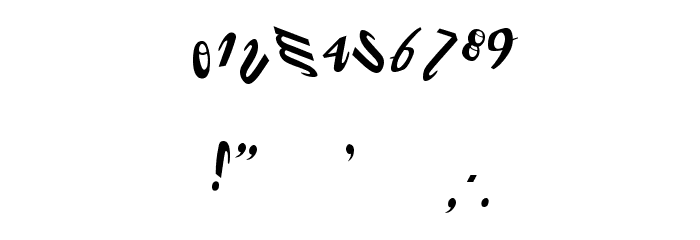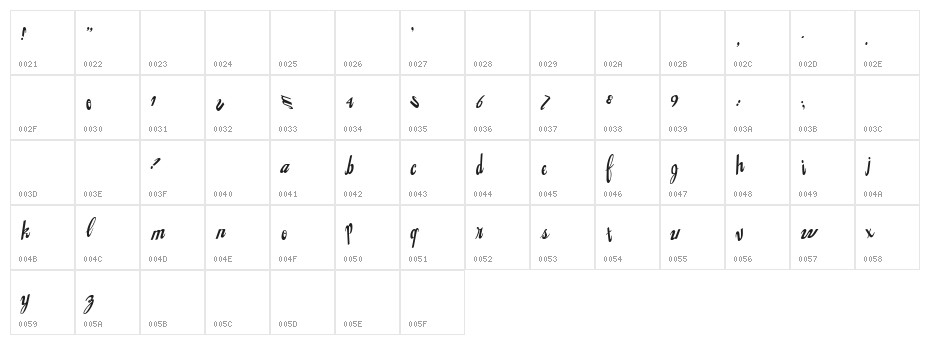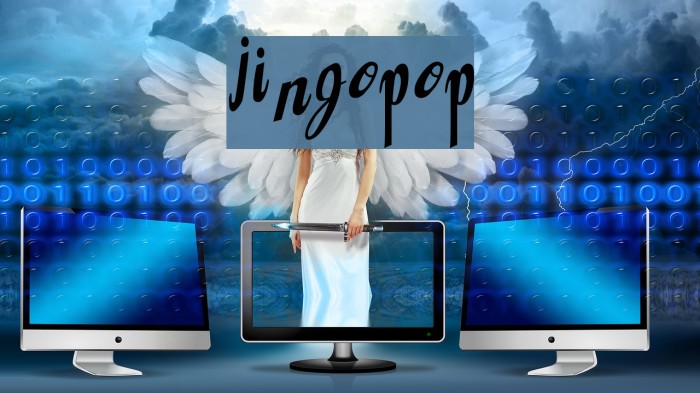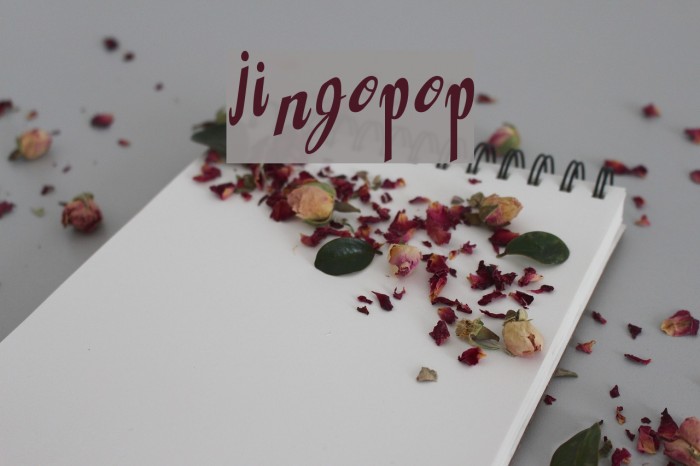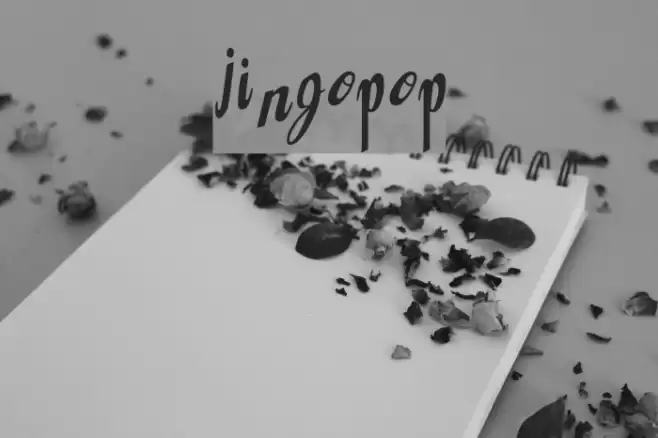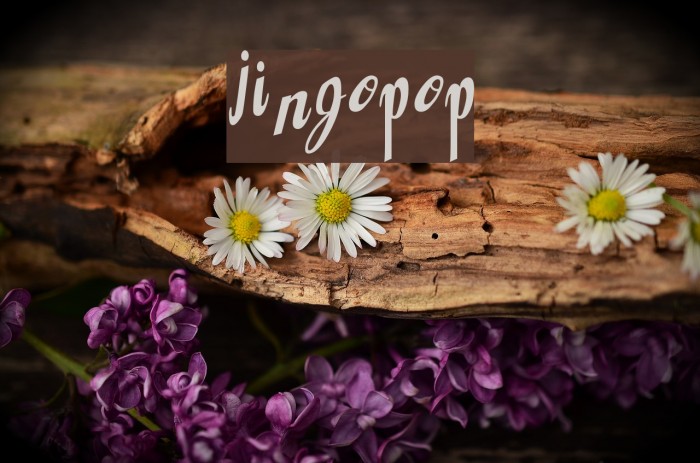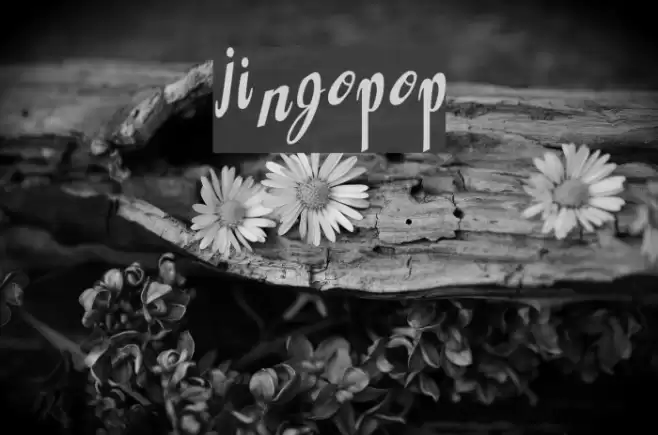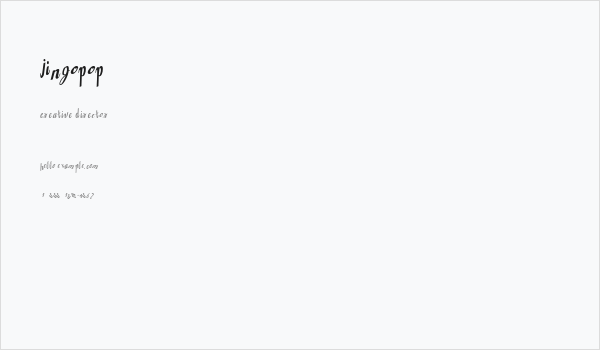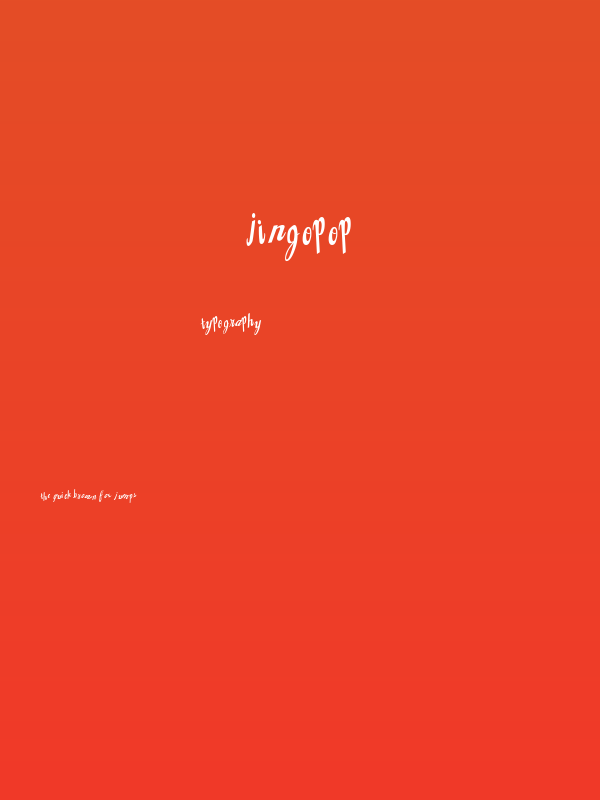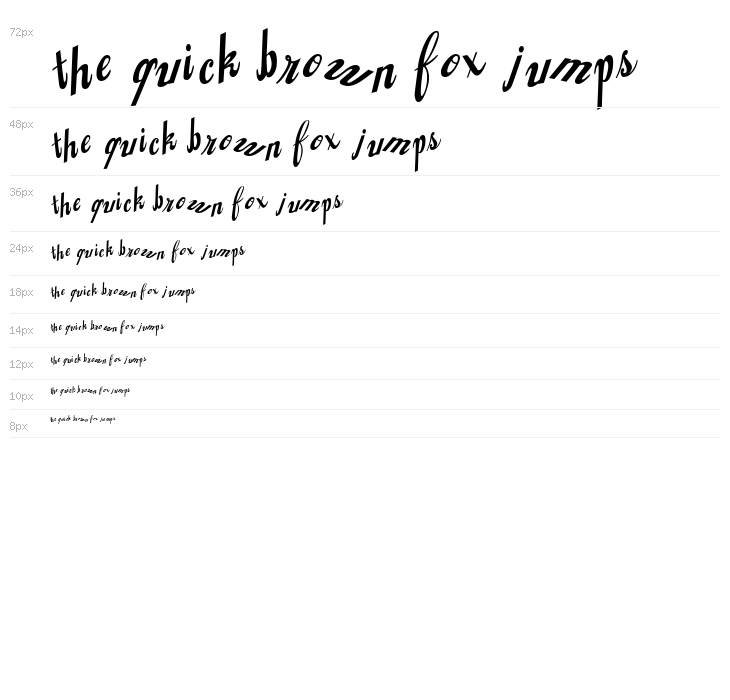
Jingopop Font
Jingopop Description
This font features a playful and dynamic script style, characterized by its fluid and cursive letterforms. The strokes are bold and expressive, with a slight slant that adds a sense of motion and energy. The uppercase and lowercase letters are well-balanced, maintaining a consistent flow throughout. The numerals and special characters complement the alphabet with similar stylistic elements, ensuring a cohesive look. The overall design is both modern and whimsical, making it suitable for creative and informal applications.